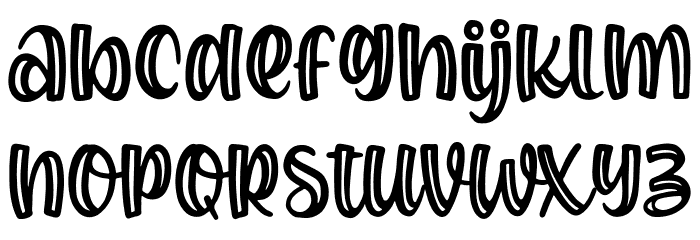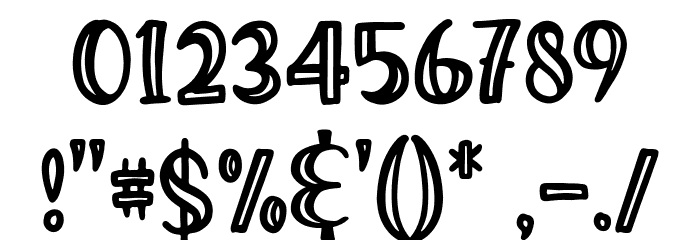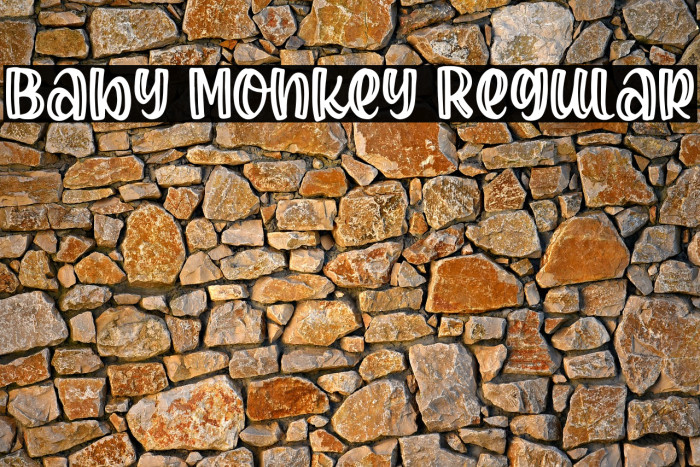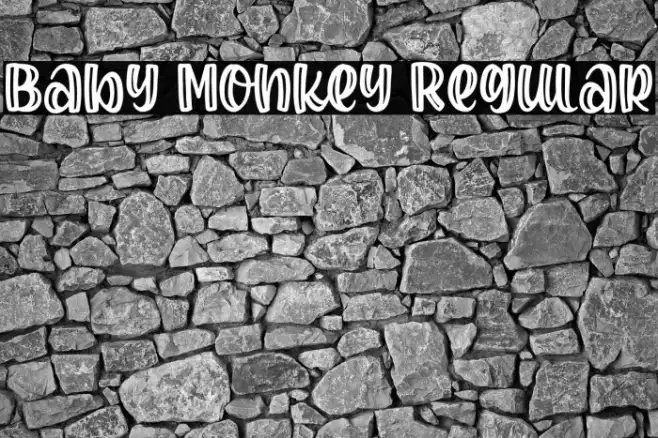
Baby Monkey Regular Font
This playful and whimsical font features bold, rounded characters with a hand-drawn feel. The letters are slightly irregular, adding a sense of fun and spontaneity. The uppercase and lowercase letters maintain a consistent style, with a slight slant that gives them a dynamic appearance. The numbers and special characters follow the same playful design, making this font ideal for creative projects. The thick strokes and rounded edges give it a friendly and approachable look, perfect for children's books, playful branding, or any project that requires a touch of whimsy.
A playful, bold, and rounded font with a hand-drawn, whimsical style.
- Font: Baby Monkey Regular
- Proposed Projects: Ideal for children's books, playful branding, greeting cards, and creative posters.
- Overall Style: Whimsical, Playful
- Use Case: Headlines, Logos, Creative projects